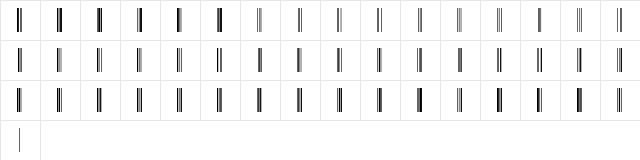
Code-93 Normal
Design Context for Code-93 Typeface
Code-93 brings the precise, column-aligned rhythm of monospaced typography to designs that value technical clarity and systematic order.
Well-suited to data-driven dashboards, coding tutorials, and any design that wants to reference the world of programming.